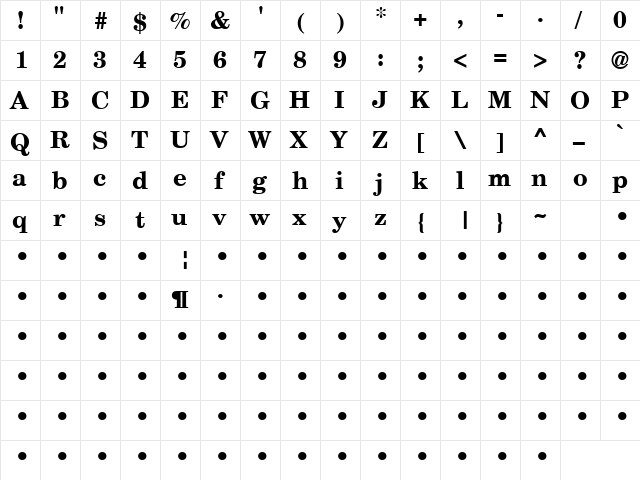
QTSchoolCentury Bold
Design Context for QTSchoolCentury Typeface
QTSchoolCentury takes a measured approach to typography — its balanced proportions and neutral character make it a reliable workhorse for both digital and print work. Its bold stroke weight gives it real presence on the page.
Pro Tip: Use QTSchoolCentury in both headline and body roles to test its range before committing to a single application.